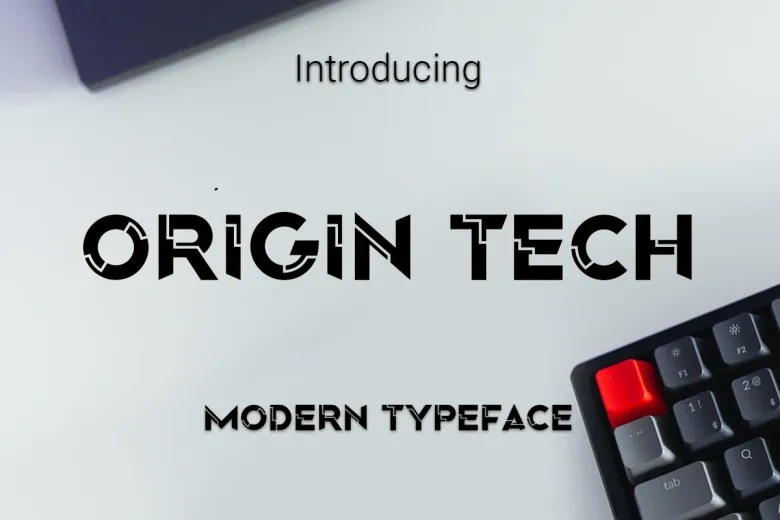
Origin Tech Font
Origin Tech is a conspicuous display font, which is dedicated to the purpose of introducing modernity and zeal to projects. This font is ideal with logos, game/app design, illustrations, posters and advertisements and so much more, creating a great first impression!
Origin Tech Display Font